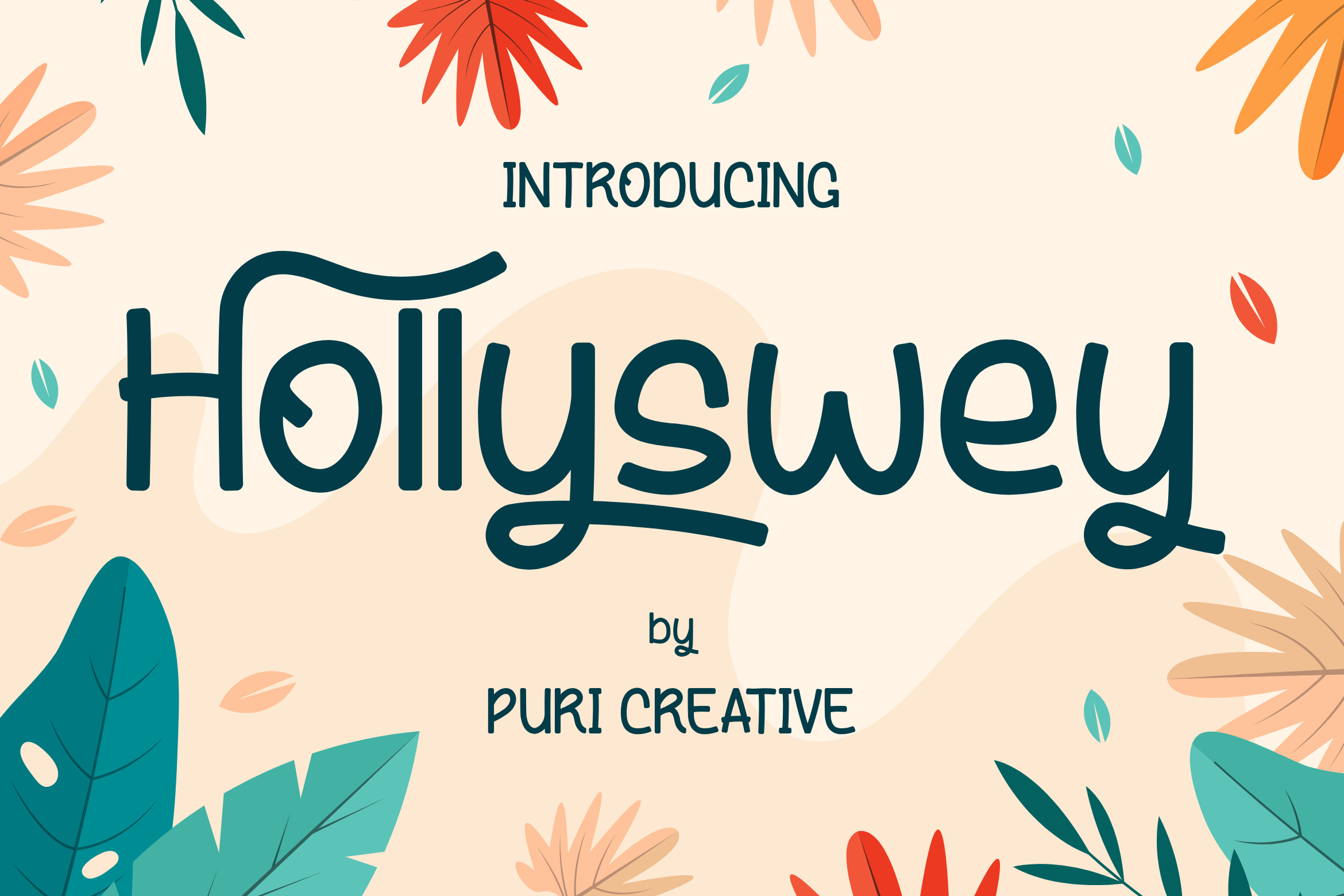
Hollyswey - Display Handwritten Font
"Hollyswey" is a display font specialized for Holiday, Festival, Celebration like Christmas & New Year. It has a cool and playful look that can be used for logos, branding, invitations, stationery, wedding designs, social media posts, and so much more. Featuring the perfect amount of trendiness, this font will make your designs come to life. This font is PUA encoded, which means you can access all of the glyphs with ease!